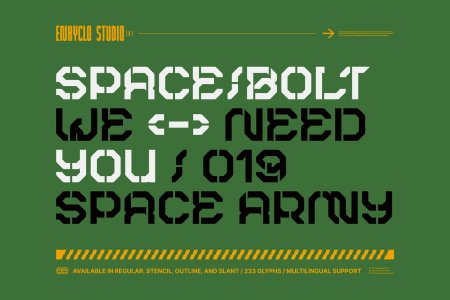
ROBMAX36 - Futuristic Mecha Font
ROBMAX36 is futuristic mecha typeface. Highly inspired by industrial and mecha-robotic vibes. The design of typeface will make your project more powerful and inspiring. It is perfect for headline, billboard, magazines, website, titles, poster, branding, thumbnail, t-shirt design, street wear design, and creative logos, or any project that needs futuristic and industrial touch. With this beautiful futuristic and industrial typeface, absolutely you can make your project stand out from the rest. See the previews above to get some inspiration on how to use them.
• 8 Styles: Regular, Slant, Outline, Outline Slant, Stencil, Stencil Slant, Stencil Outline, Stencil Outline Slant
• Contains 233 Glyphs for Each Style (Total: 1.864 Glyphs)
• Uppercase, Numeral, Punctuation & Symbol
• Multilingual support. Support for 44 languages: Asu, Bemba, Bena, Chiga, Cornish, Embu, English, Estonian, Filipino, Gusii, Indonesian, Kabuverdianu, Kalenjin, Kamba, Kikuyu, Kinyarwanda, Luo, Luyia, Machame, Makhuwa-Meetto, Makonde, Meru, Morisyen, North, Ndebele, Nyankole, Oromo, Quechua, Rombo, Rundi, Rwa, Samburu, Sangu, Shambala, Shona, Soga, Somali, Swahili, Swiss, German, Taita, Teso, Uzbek (Latin), Volapük, Vunjo, Zulu.